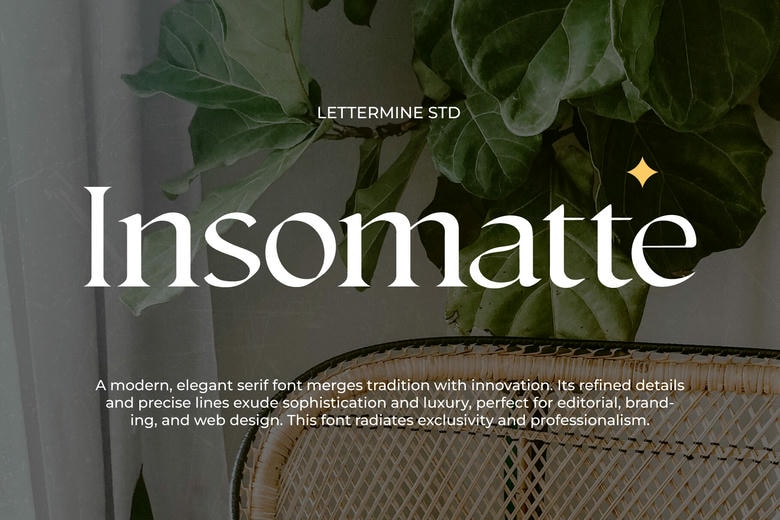
Insomatte Font
Insomatte is an elegant modern serif font that will help to give any project a touch of class. Stitched in a manner that ensures it meets all your design needs, It is perfect for branding & logo, wedding, editorial & publishing, social media, and product packaging.
Insomatte Serif Font